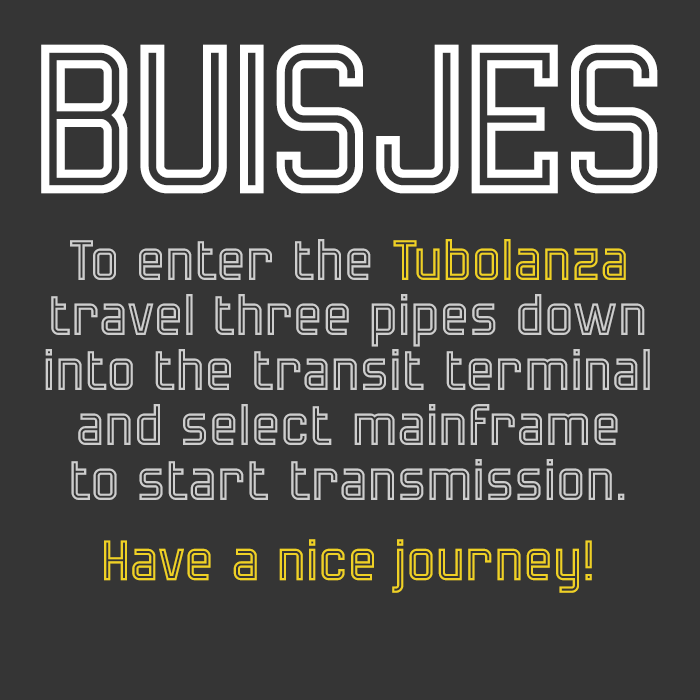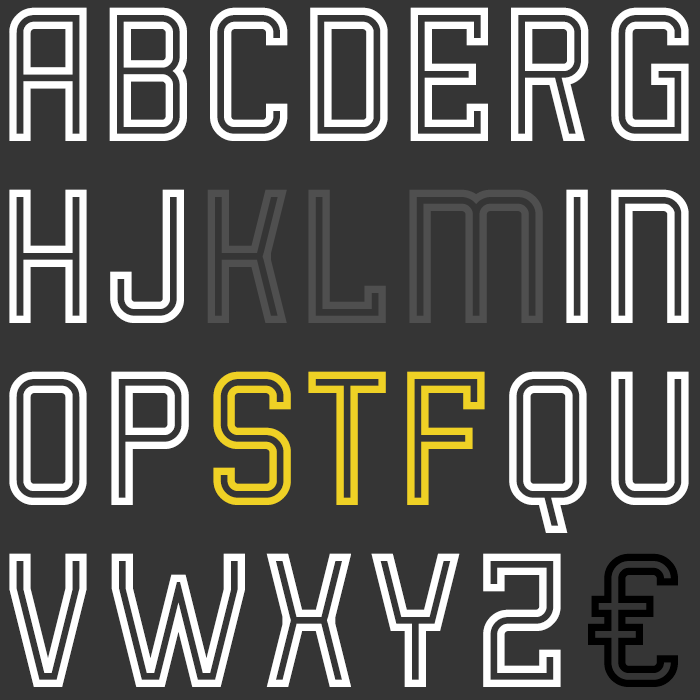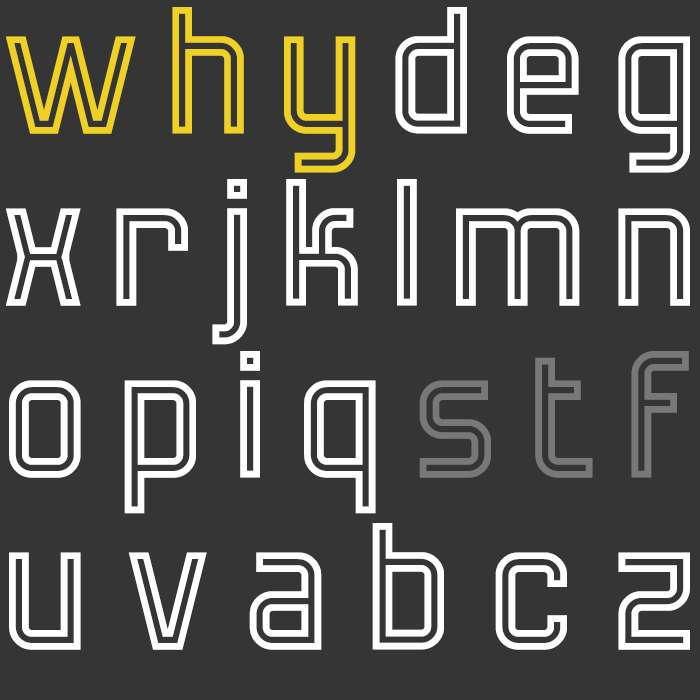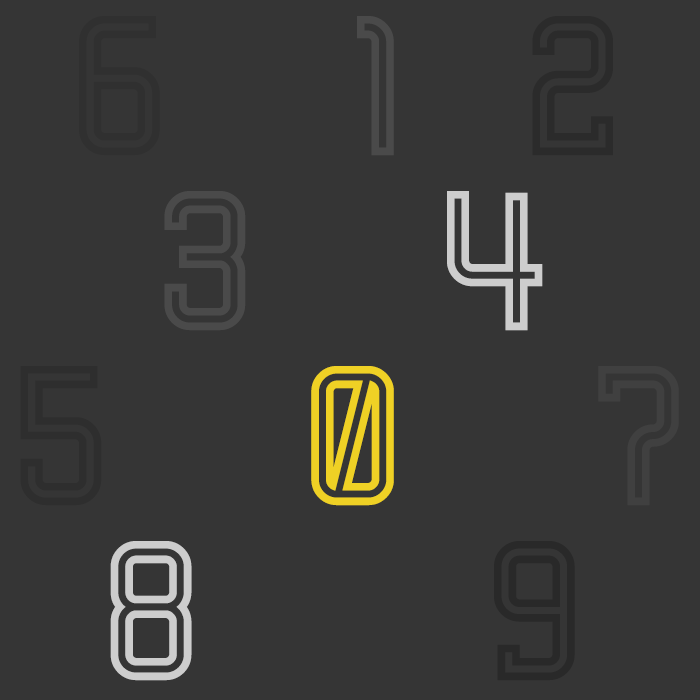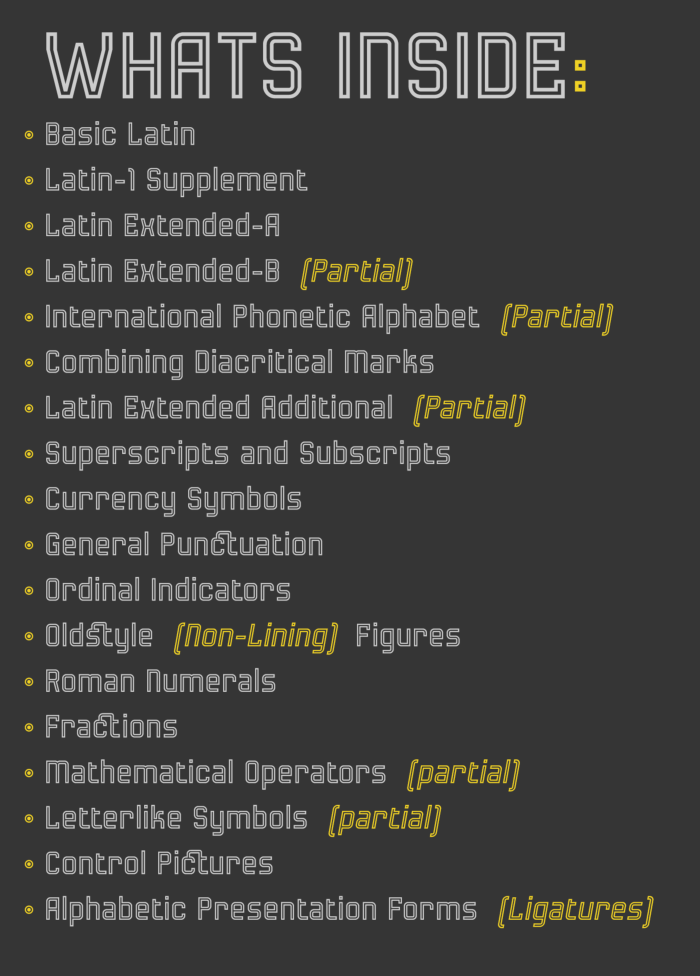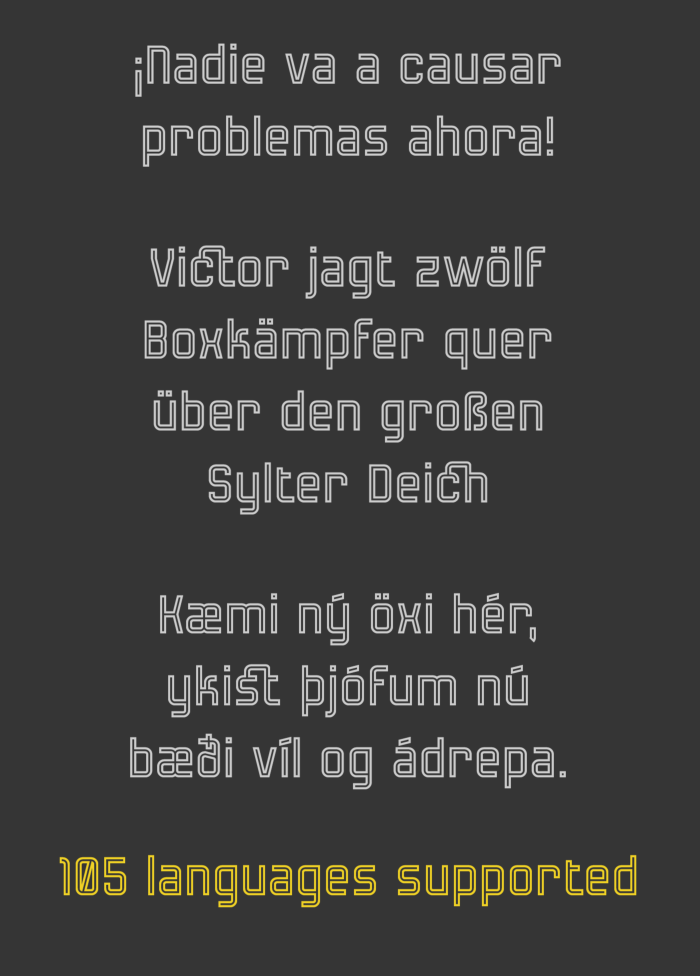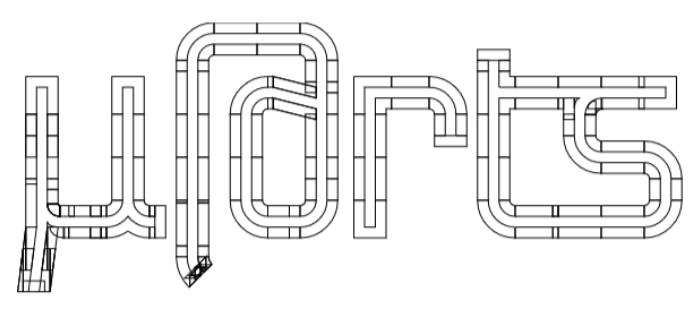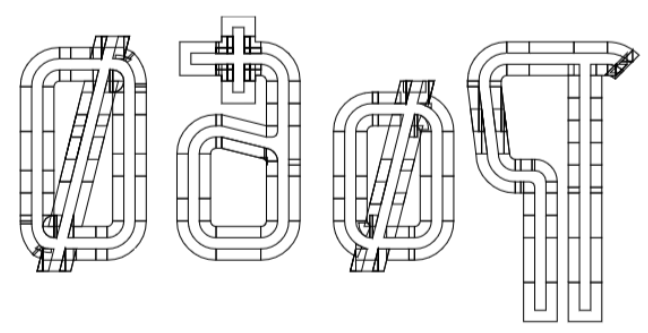
• BUISJES — Geometric outlined sans-serif design
While at first I was just updating one of my custom brick tool sets with some additional new pre-build custom composite bricks which seemlessly fit and allign with the dimensions of FontStruct's default connection brick set, the font more or less materialized as this happy accident while I was fooling around and constructed several basic letterforms and shapes for testing these composite brick solutions I was making.
Before realizing it I had about half-a-alphabet's worth of random letter doodles. From there on out I simply decided to copy the letters that came from this test run and drop them into a new FontStruct project and just resumed building the remainder of what would later become this rather modernist clean looking geometric outline sans.
Now, keep in mind that working with the constraints of these (largely 'Composite'-like) and somewhat oddball physically natured 'Connection'-bricks is very limited, and can be quite tricky. They simply doesn't allow the same level of design freedom FS's 'Core'-bricks do (E.g. the centre allignement, their thickness and that 30-bricks-only limited palette size for each of the three variations). To acquire some of that more distinctive and specific tailor made geometry usually requires clever brick arrangements that consist from a mixture of both multi-stacked-composites and brick overlaps to patch gaps and smoothen curve contours.
This process can sometimes become very 'trial / error' -based and unpredictable when complexity increases. Distracting at times, as it gets in the way of primary objectives. To constantly having to invent different new solutions that work simply doesn't help creative workflow. Therefor I decided to dive a little deeper into expanding my pre-fabricated 'ready-to-use' composite brick palette.
So far I'm very pleased with the final result, especially with how easy this new set of custom brick composites turn out to create new letters. The bricks feel very intuitive to work with, and unlock quick access to greater sophistication and shaping of more complex geometry. Opening up several new possibilities that are impossible to construct solely from the default 'Connection' -brick palette. So having them at my disposal in a pre-fab fashion is certainly gonna help streamline the workflow.
As far as for the font's aesthetica, there isn't all that much spectacular going on really. The basic geometry provides a rigid solid looking lettering that produces this fairly legible text. The modern yet clean characteristics making it the perfect match for a broad range application.
• Multi-Lingual (105 languages supported)
• Some glyph alternate forms
• Kerning (1922 stored pairs)
The font name refers to its tubular characteristics and comes from the Dutch word Buizen, which literally translate to Tubes in English.
I wonder how STF did the diagonals on the 0 and the Ø
Nice font, pretty and smooth as a clear summer night, compa. My only "but" are the rounded ends of the acute and grave accents. 10/10.
@elmoyenique: Thanks for the appreciatiot compa! And about the round ends, you're absolutely right. I removed all round ends from the font! Also have I included a bunch of new alternative glyphs.
[UPDATED]
• Superscripts and Subscripts
• Ordinal Indicators
• Oldstyle (Non-Lining) Figures
• Roman Numerals
• Fractions
• Mathematical Operators (partial)
• Letterlike Symbols (partial)
• Control Pictures
Comment by Sed4tives 29th august 2023
[UPDATED]
• Latin Extended-A
• Combining Diacritical Marks
• Alphabetic Presentation Forms (Ligatures)
Language support now includes 92 languages.
Comment by Sed4tives 30th august 2023
— UPDATE  (Now includes support for 105 Latin languages)
• Latin Extended-B (Partial)
• International Phonetic Alphabet (Partial)
• Latin Extended Additional (Partial)
Comment by Sed4tives 31st august 2023
I am still curious how you made the diagonals work the 0 and Ø.
Comment by Bryndan W. Meyerholt (BWM) 31st august 2023
@BWM: I will post a sample image tomorrow when I get back at PC. 😉
Comment by Sed4tives 31st august 2023
@BWM: Here is the grid diagram, enjoy!
Comment by Sed4tives 31st august 2023
Such masterful brick work
Comment by thalamic 31st august 2023
@Sed4tives - That's exactly how I thought you created the diangonals...  ;^D
Comment by Goatmeal 31st august 2023
@thalamic: Thanks for those kind words mate!
& Goatmeal: Yeah I can figure, they aren't all that complex. Its often simply a matter of just thinking of it.. Most importent is to know the brick palette and the maths that take place behind composite behaviour.
Only thing I could think of is, when you look at the first diagram image, the bottom left part of the minuscule: ø's slash shows a small incorrect allignement with the enclosed part of the slash, but this has been fixed already...
Excellent work on those diagonals, that blend in perfectly. And what an extensive set of characters!